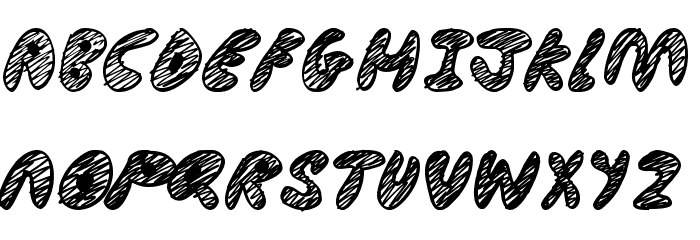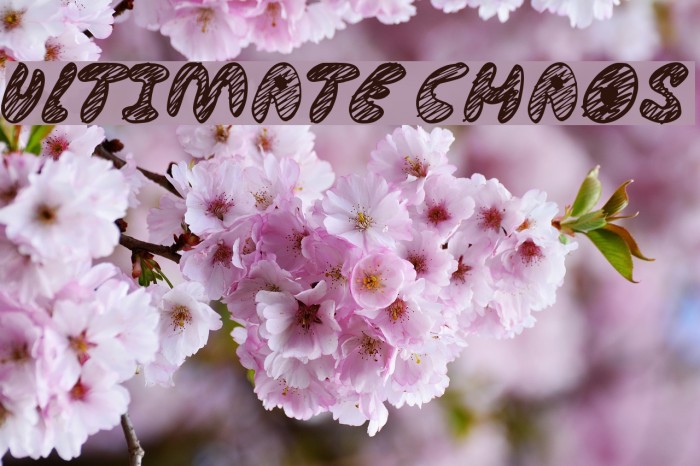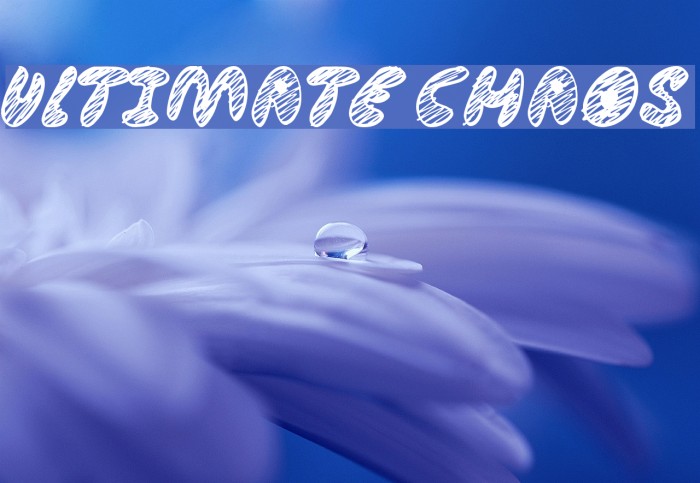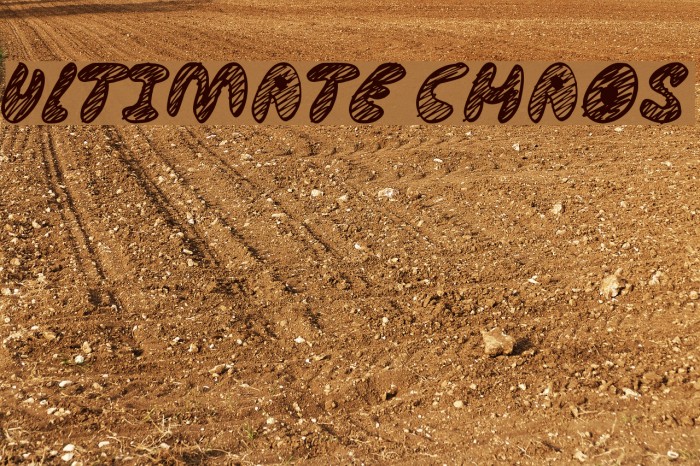
Ultimate Chaos Font
This font features a bold, hand-drawn style with a chaotic and energetic appearance. Each character is filled with a scribbled texture, giving it a dynamic and playful look. The uppercase and lowercase letters maintain a consistent style, with rounded edges and a slightly irregular form that adds to its charm. The numbers and special characters follow the same design, ensuring uniformity across all glyphs. This font is ideal for projects that require a touch of creativity and spontaneity, making it perfect for artistic and informal designs.
A bold, hand-drawn font with a scribbled texture and playful style.
- Proposed Projects: Ideal for posters, children's books, creative branding, and artistic projects.
- Use Case: Headlines, Logos, Artistic projects